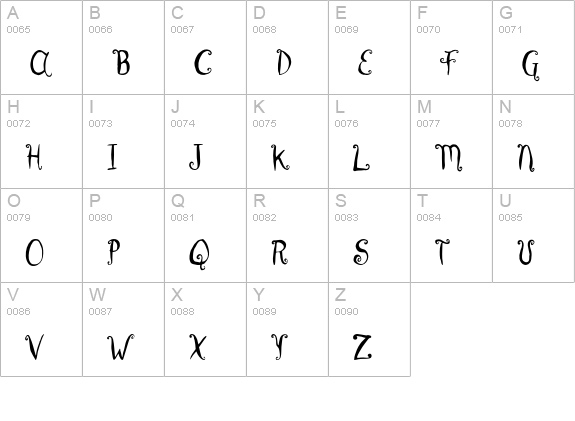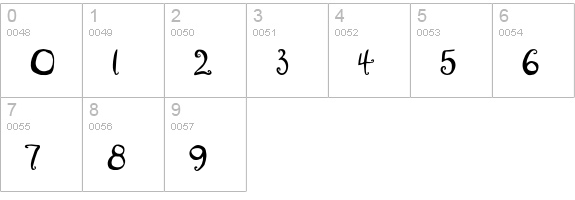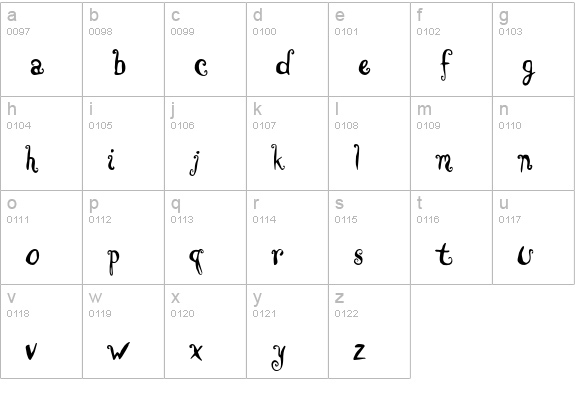
BrownCow Font Details
Introducing BrownCow font - a charming and whimsical typeface that exudes warmth and versatility. With its rounded edges and playful aesthetic, BrownCow is perfect for a wide range of design projects, from invitations to branding to social media graphics. This delightful font is sure to add a touch of personality to any creative endeavor. And the best part? BrownCow is available for free download at FontsMarket.com, making it easily accessible for designers and creators looking to infuse their work with a touch of whimsy and charm. Don't miss out on the opportunity to enhance your projects with this unique and delightful font - download BrownCow today!